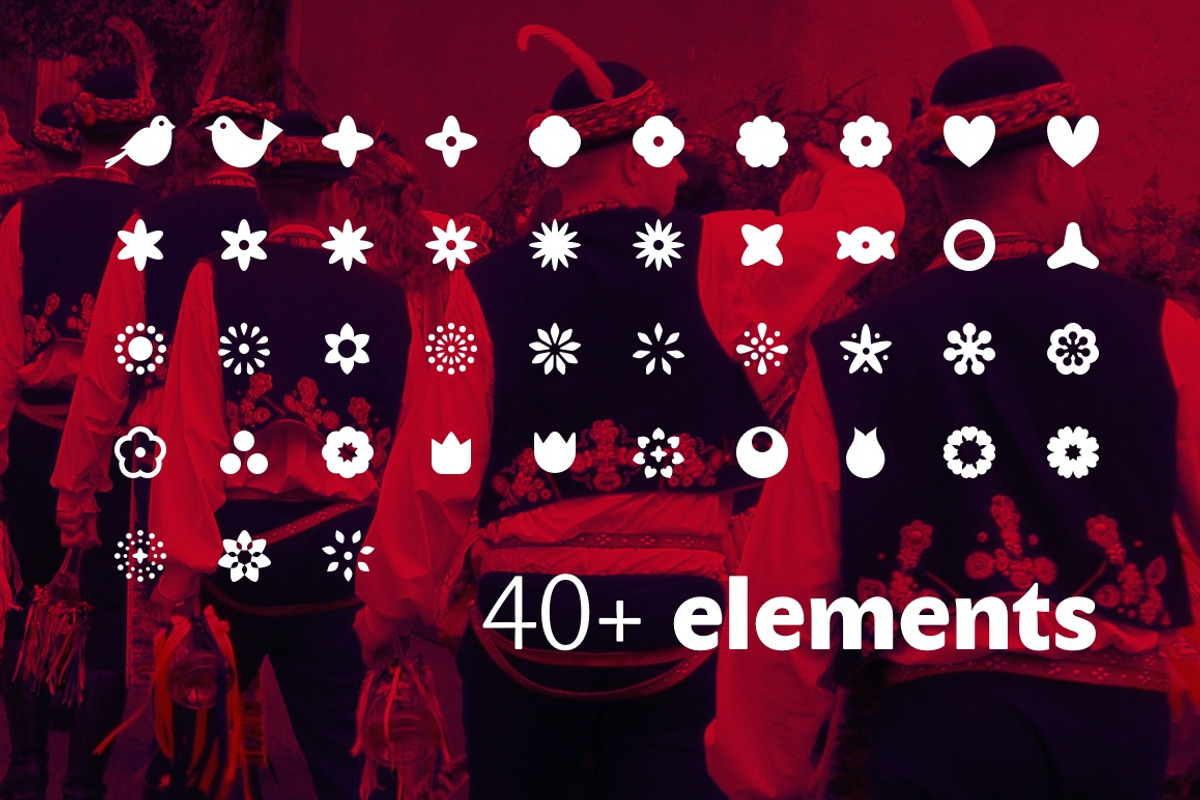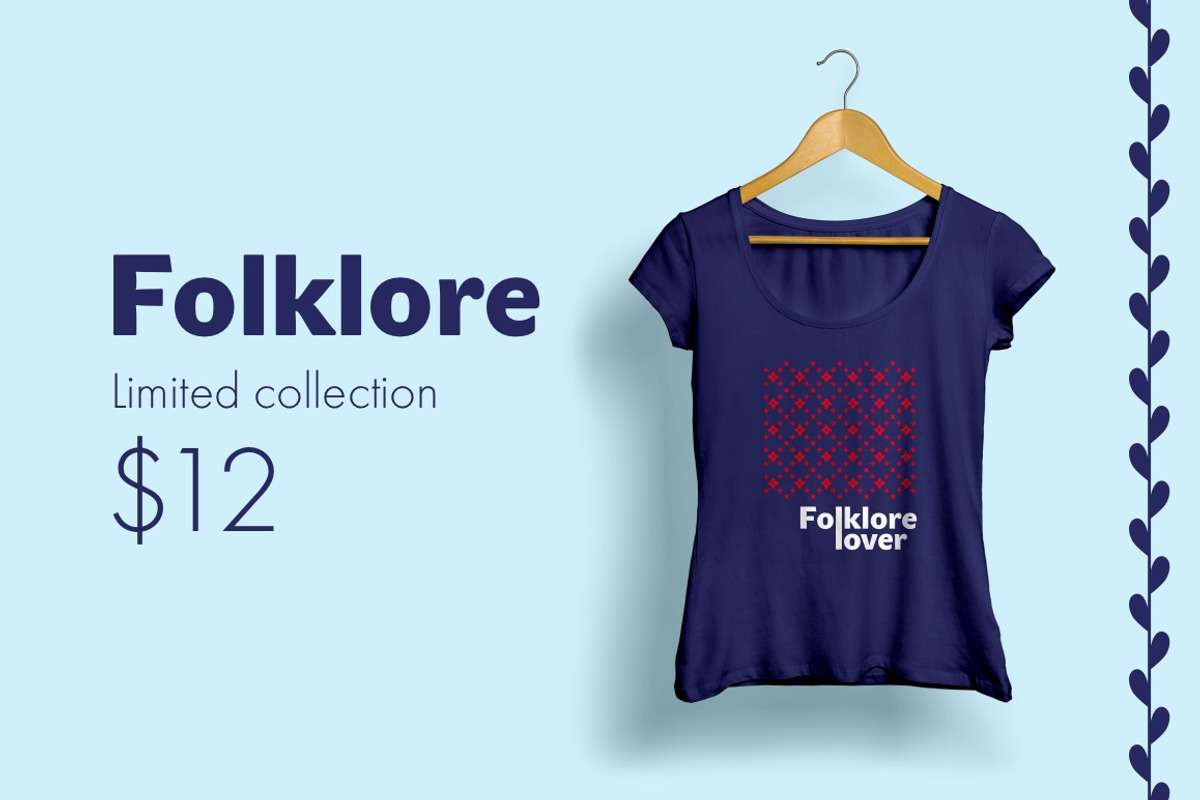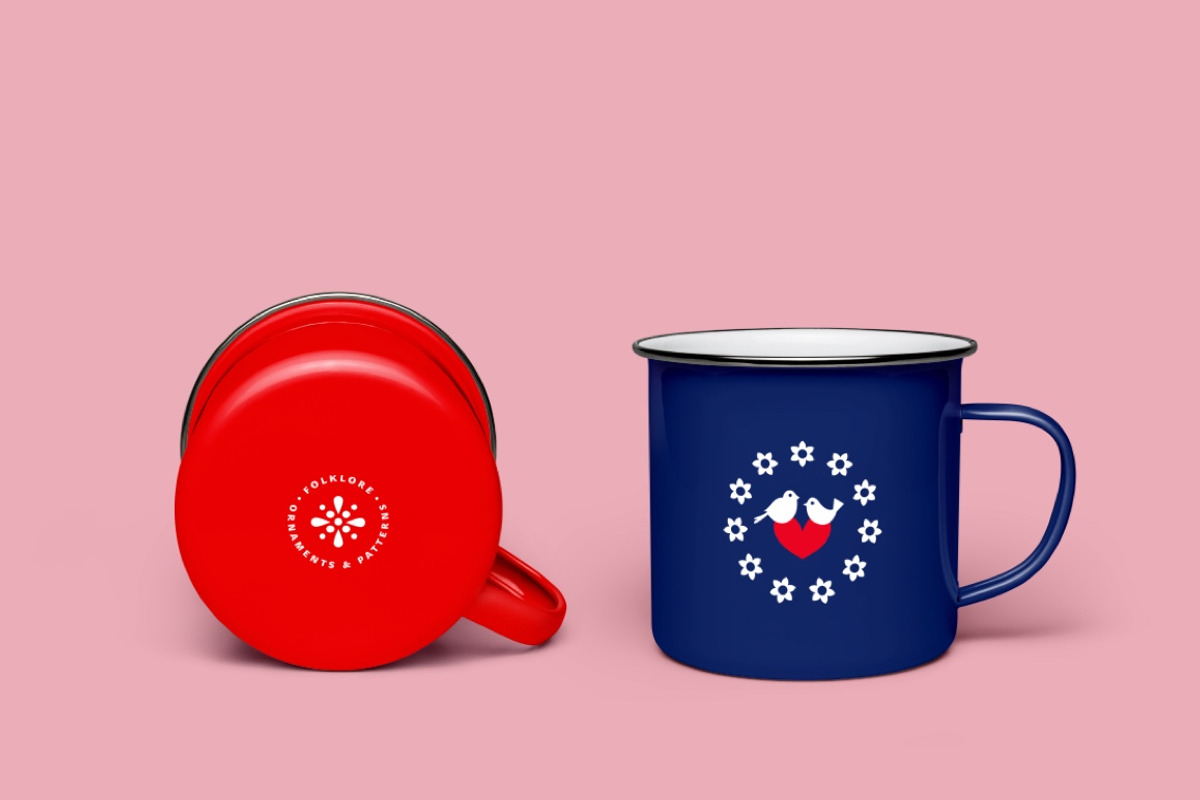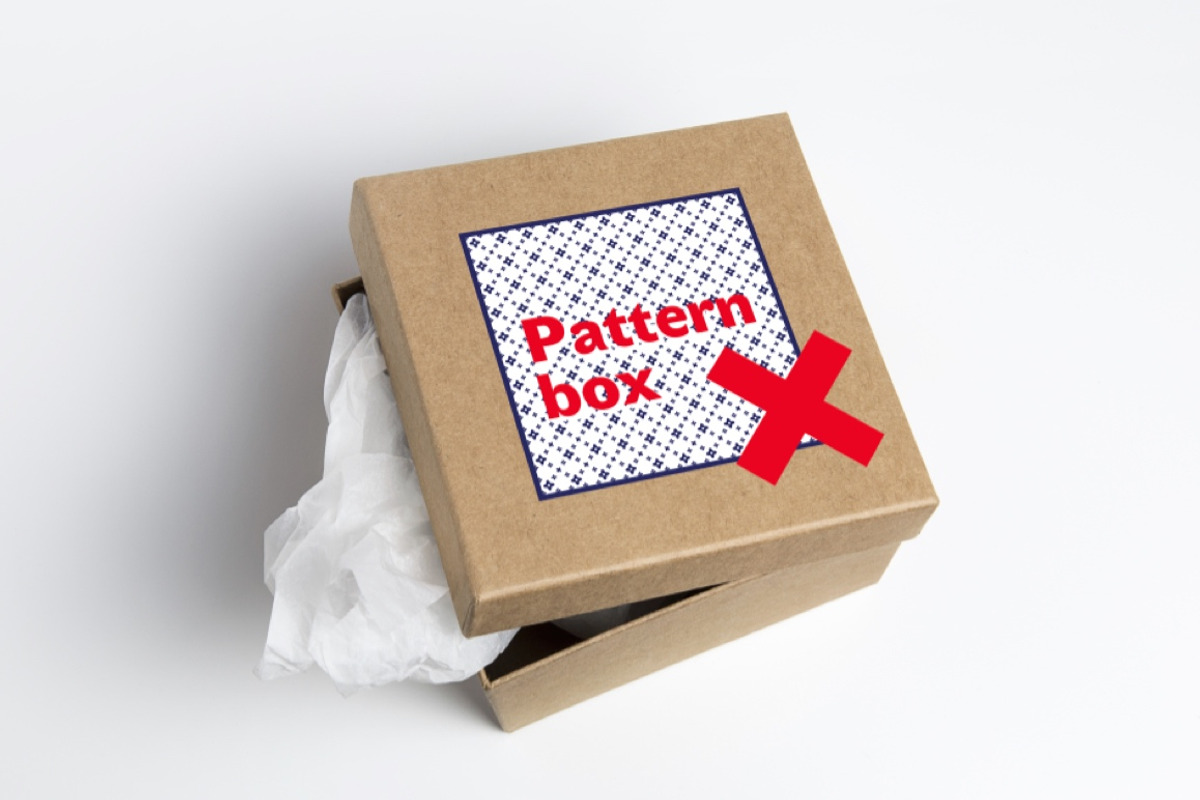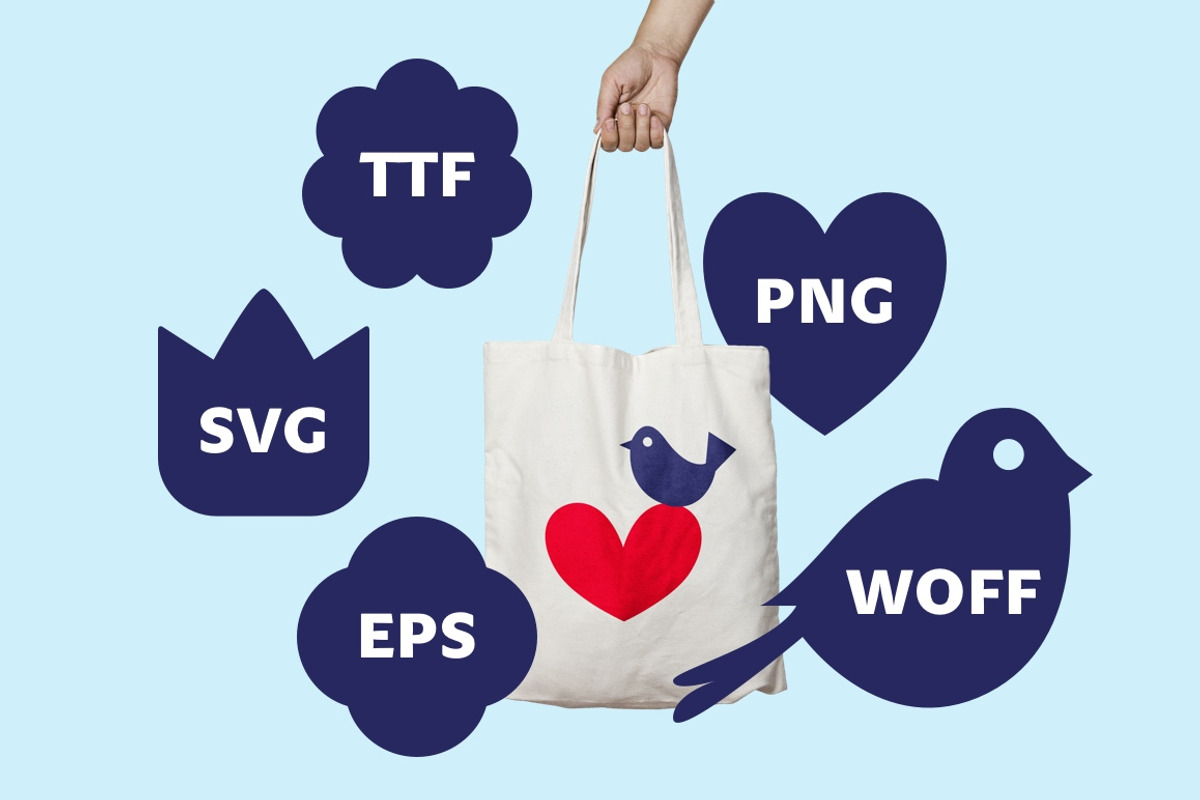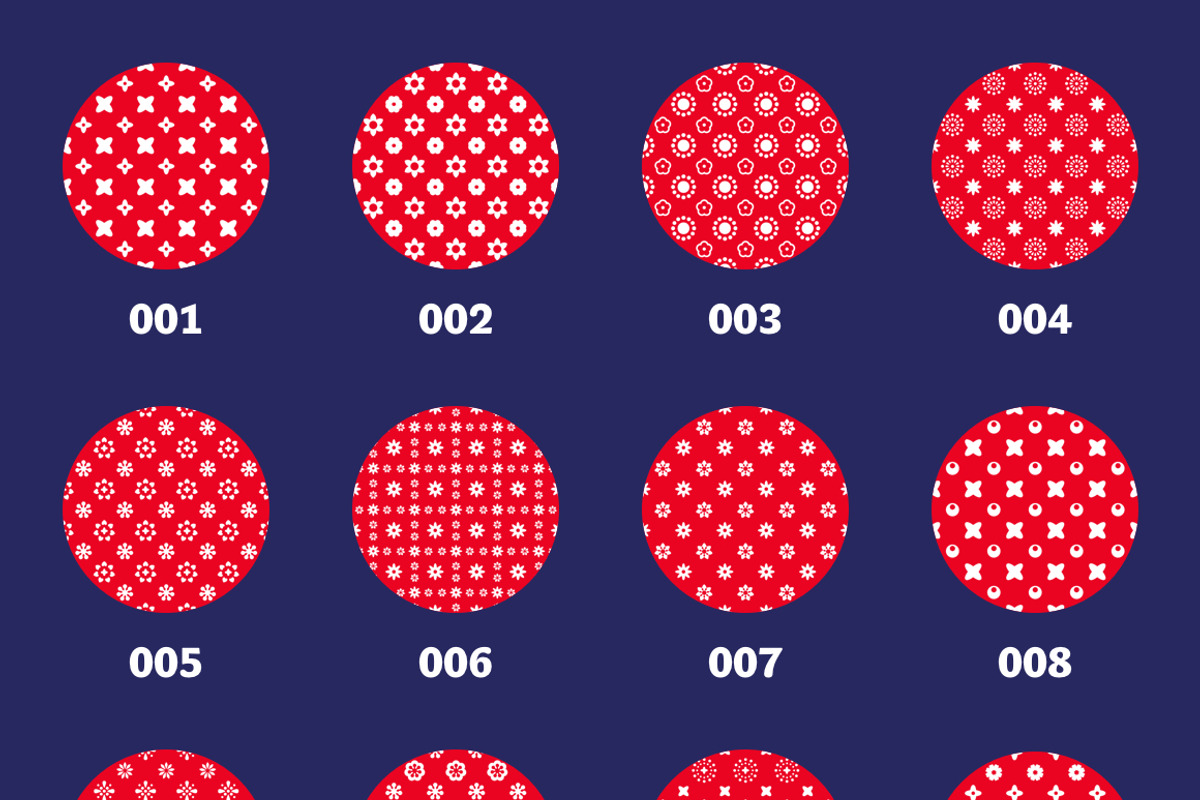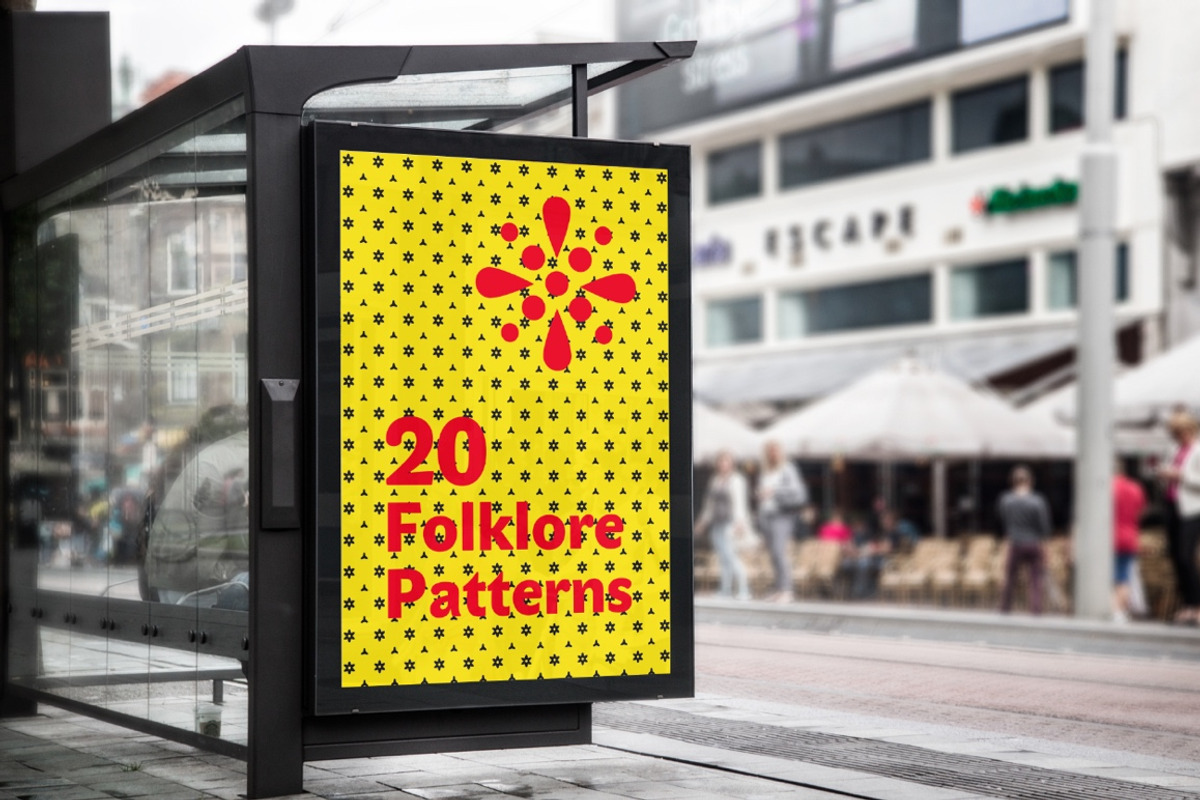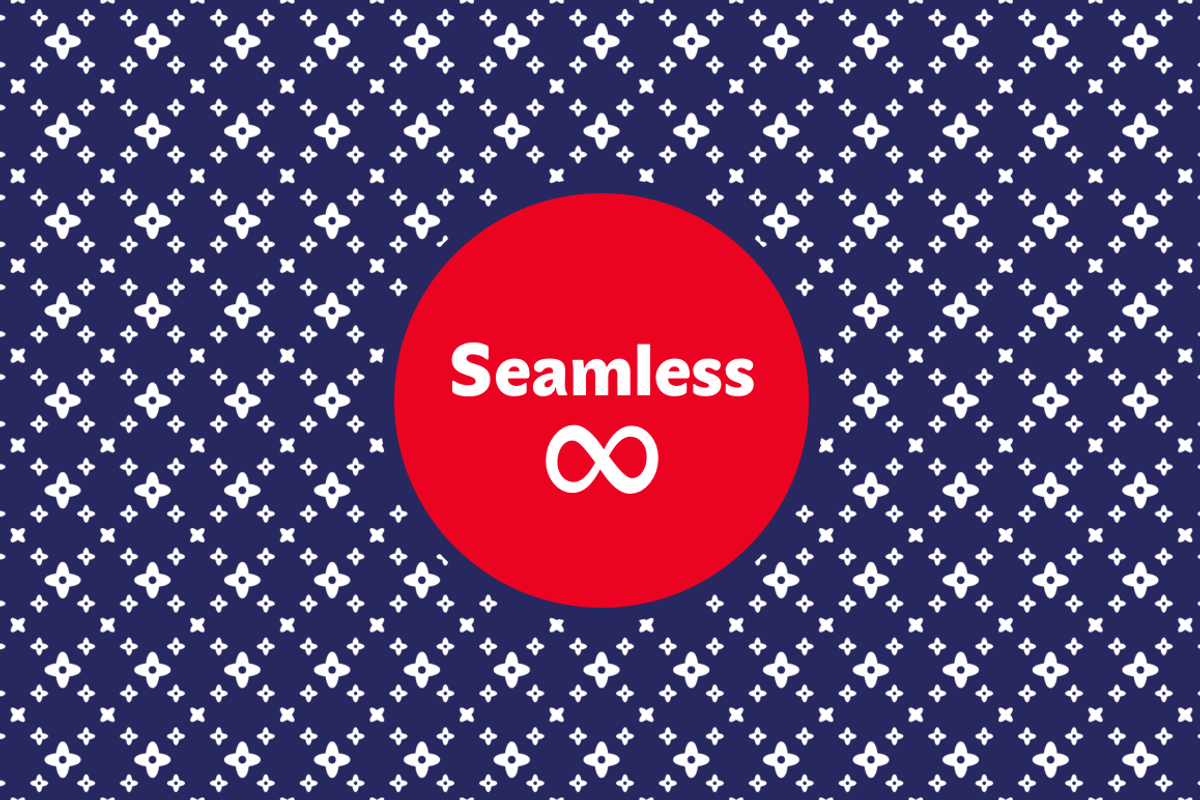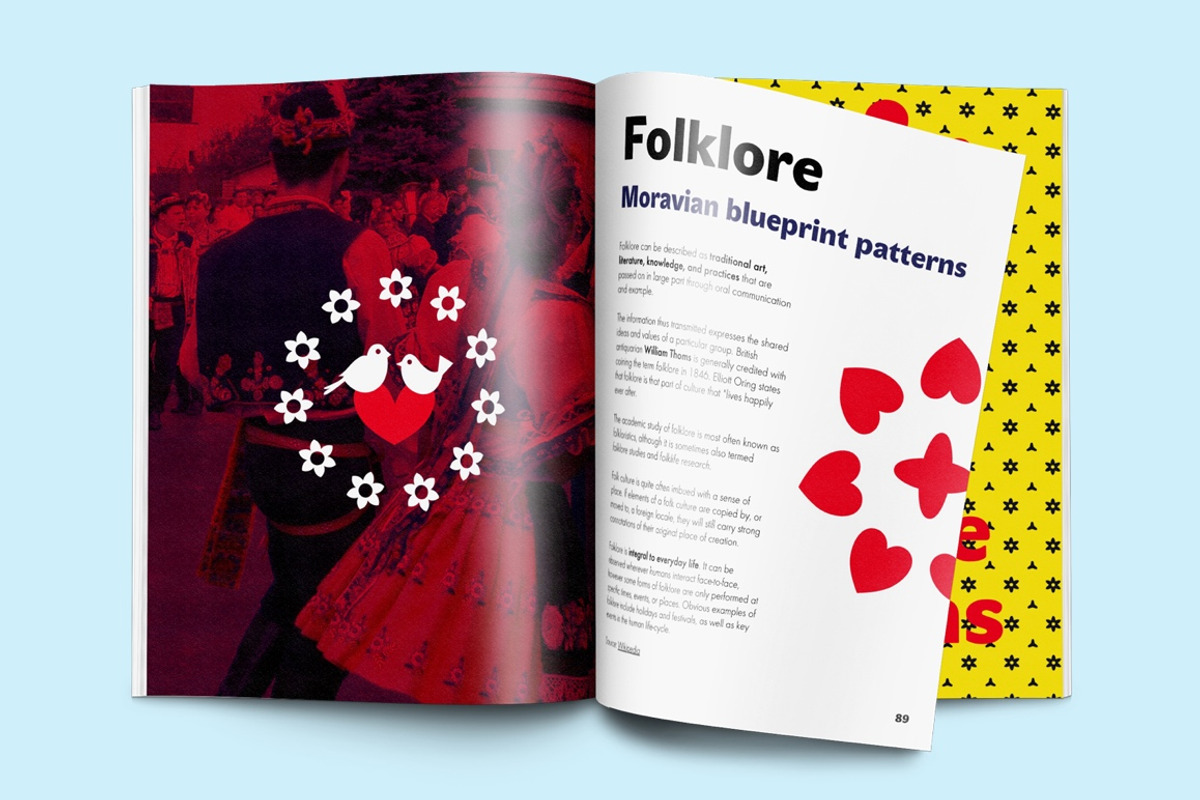
Folklore Patterns & Elements + Font
Folklore Patterns & Elements collection contains 20 square seamless vector patterns & 40+ vector elements ready to use for your designs. You can imagine to use the patterns for both print and web design. Look at preview images to get the idea. Patterns inspiration comes from Moravian folklore blueprint.
This item also includes exclusively CUSTOM FONT made from all 40+ objects. Use it for your print design or as web font.